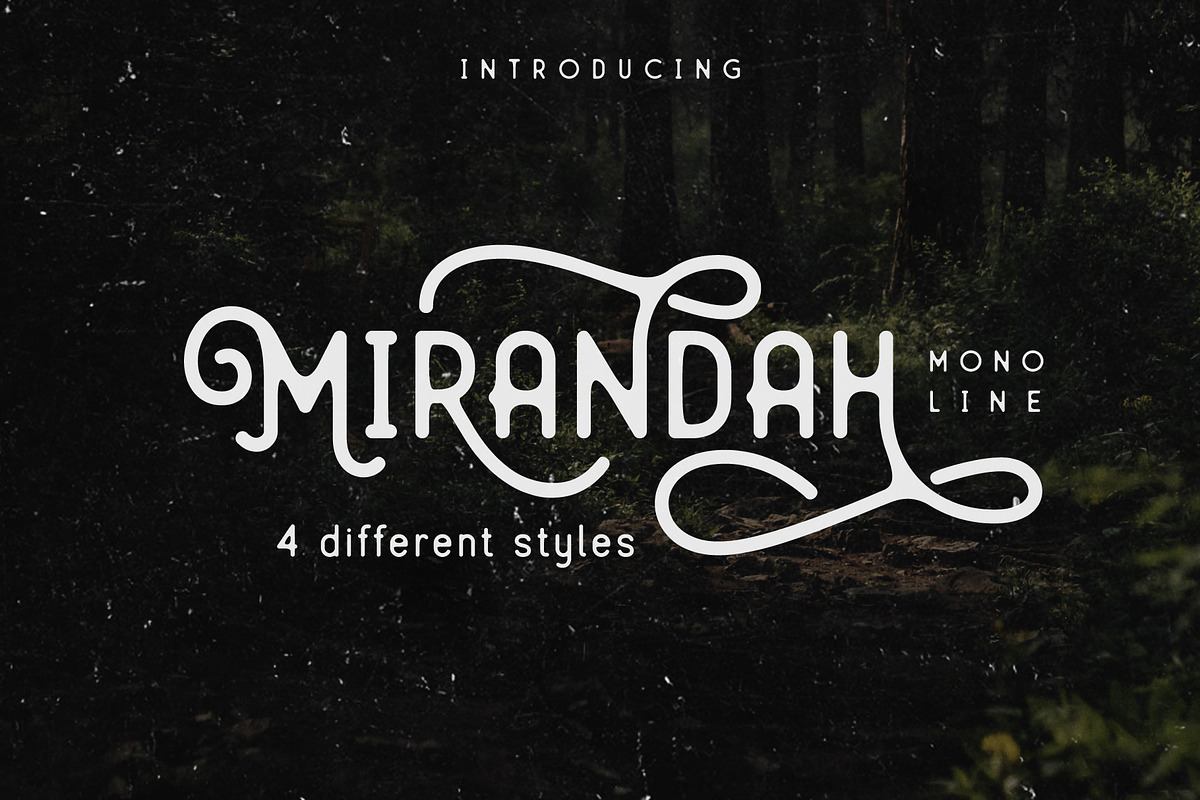
Mirandah Monoline Font Family Free Download is a beautifully crafted typeface that blends elegance with simplicity. Designed for those who appreciate a minimalist aesthetic, this font family is perfect for branding, logos, wedding invitations, social media graphics, and more. Its smooth monoline strokes give a clean and modern feel, making it suitable for both personal and professional design projects.
Whether you're designing a classy brand or working on a custom script design, Mirandah Monoline delivers a timeless charm. It comes with a full set of characters and stylish alternates to help you achieve your creative vision with ease.